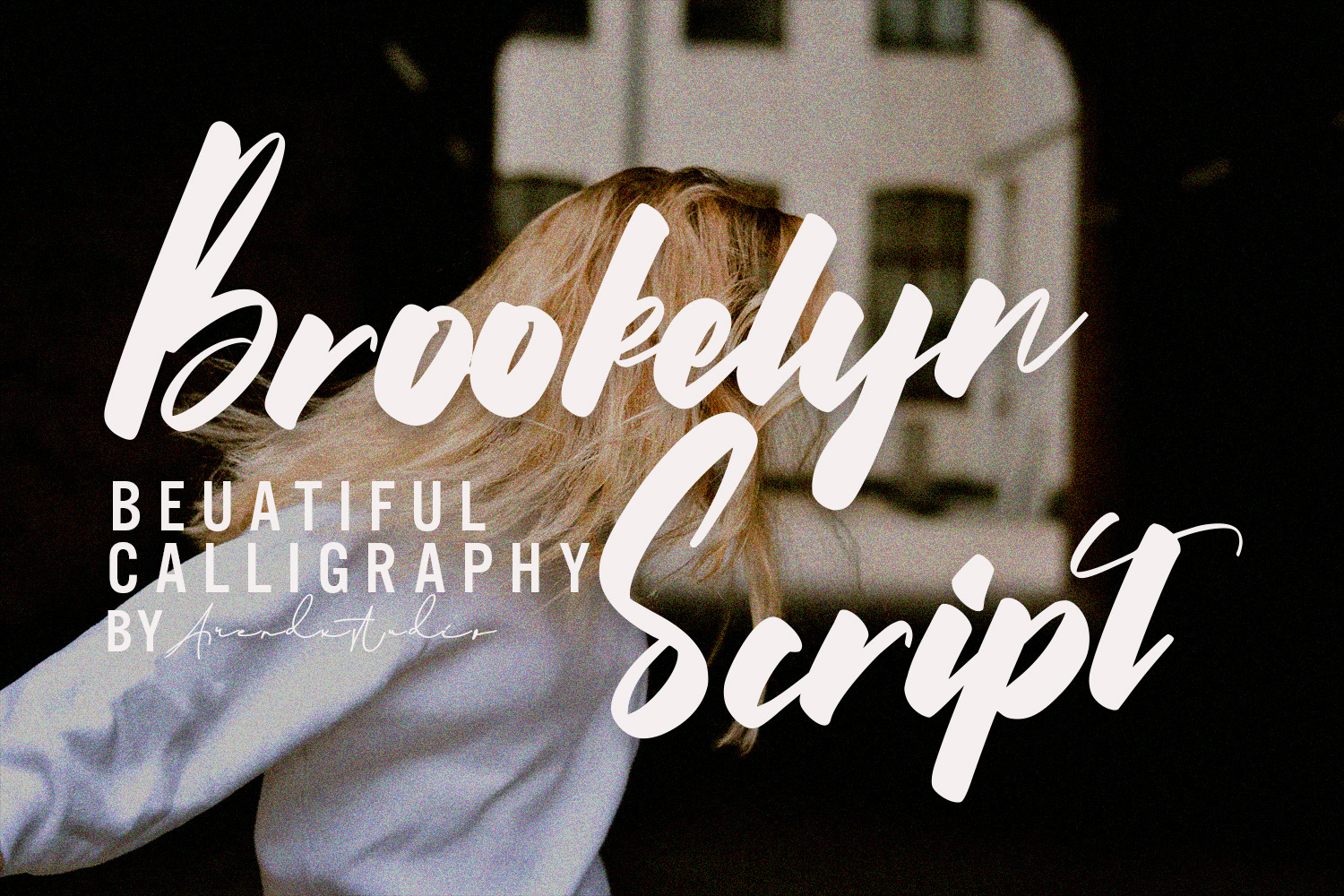
Brookelyn - Script Font
Brookelyn - Script Font with a natural & stylish flow. This collection of scripts is perfect for personal branding. this works well for many applications. Everything from personal branding & wedding invitations to advertising could benefit from this collection of signature font
Features : • Character Set A-Z • Numerals & Punctuations (OpenType Standard) • Accents (Multilingual characters) • Ligature